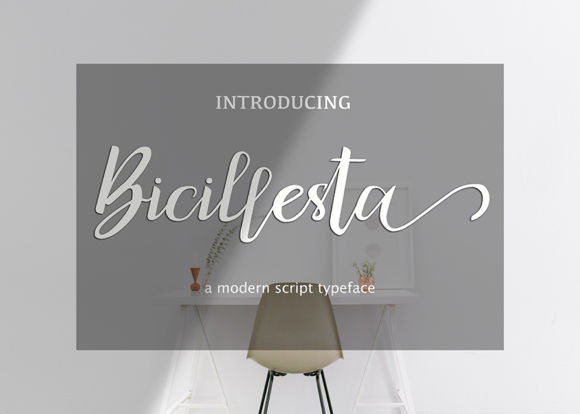
Bicillesta Font: A Fresh and Modern Script Font
Bicillesta font is a stunning script font that has taken the design world by storm. Its unique blend of elegance and authenticity has captured the hearts of designers and typography enthusiasts alike. In this article, we’ll dive into the world of Bicillesta font, exploring its features, benefits, and uses.
What Makes Bicillesta Font So Special?
Bicillesta font is a fresh and modern script font that’s both elegant and authentic. Its unique charm lies in its flowing lines, beautiful swashes, and intricate details. Here are some of the key features that make Bicillesta font stand out:
- Unique Letterforms: Bicillesta font boasts unique letterforms that are both elegant and playful. Each letter is carefully crafted to create a sense of movement and fluidity.
- Beautiful Swashes: The font comes with beautiful swashes that add a touch of sophistication and elegance to any design.
- Intricate Details: Bicillesta font is full of intricate details that make it perfect for designs that require a high level of craftsmanship.
- Modern and Fresh: The font has a modern and fresh feel that’s perfect for designs that require a contemporary look and feel.
The Benefits of Using Bicillesta Font
Bicillesta font offers a range of benefits that make it an excellent choice for designers and typography enthusiasts. Here are some of the key benefits of using Bicillesta font:
- Elegance and Sophistication: Bicillesta font adds a touch of elegance and sophistication to any design, making it perfect for high-end brands and luxury products.
- Authenticity: The font has an authentic feel that’s perfect for designs that require a personal touch.
- Versatility: Bicillesta font is versatile and can be used for a wide range of designs, from logos and branding to packaging and advertising.
- Easy to Read: The font is easy to read, making it perfect for body text and long-form content.
How to Use Bicillesta Font
Bicillesta font is a versatile font that can be used for a wide range of designs. Here are some of the most popular uses of Bicillesta font:
- Logo Design: Bicillesta font is perfect for logo design, especially for high-end brands and luxury products.
- Branding: The font can be used for branding, including business cards, letterheads, and packaging.
- Advertising: Bicillesta font is great for advertising, including print ads, digital ads, and social media ads.
- Packaging: The font can be used for packaging, including product labels, product descriptions, and instruction manuals.
Pairing Bicillesta Font with Other Fonts
Pairing Bicillesta font with other fonts can create a stunning visual effect. Here are some font pairing suggestions:
- Open Sans: Pairing Bicillesta font with Open Sans creates a beautiful contrast between the elegant script font and the clean sans-serif font.
- Lato: Pairing Bicillesta font with Lato creates a modern and fresh look that’s perfect for designs that require a contemporary feel.
- Merriweather: Pairing Bicillesta font with Merriweather creates a classic and elegant look that’s perfect for designs that require a sophisticated feel.
Bicillesta font is a stunning script font that’s both elegant and authentic. Its unique charm, beautiful swashes, and intricate details make it perfect for designs that require a high level of craftsmanship. With its versatility, elegance, and sophistication, Bicillesta font is an excellent choice for designers and typography enthusiasts.